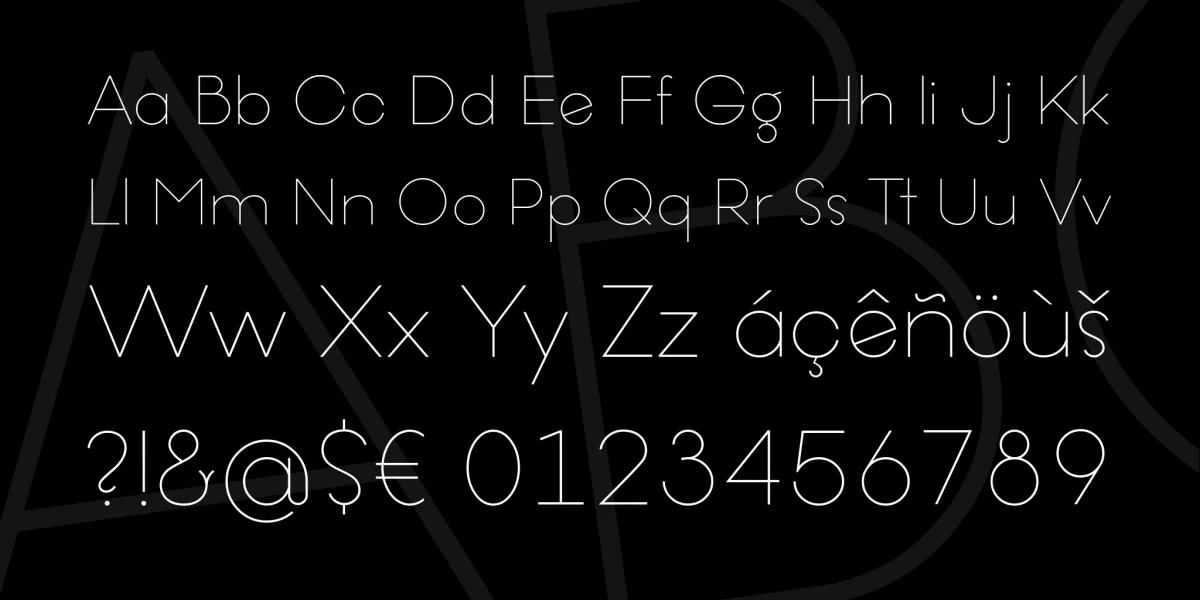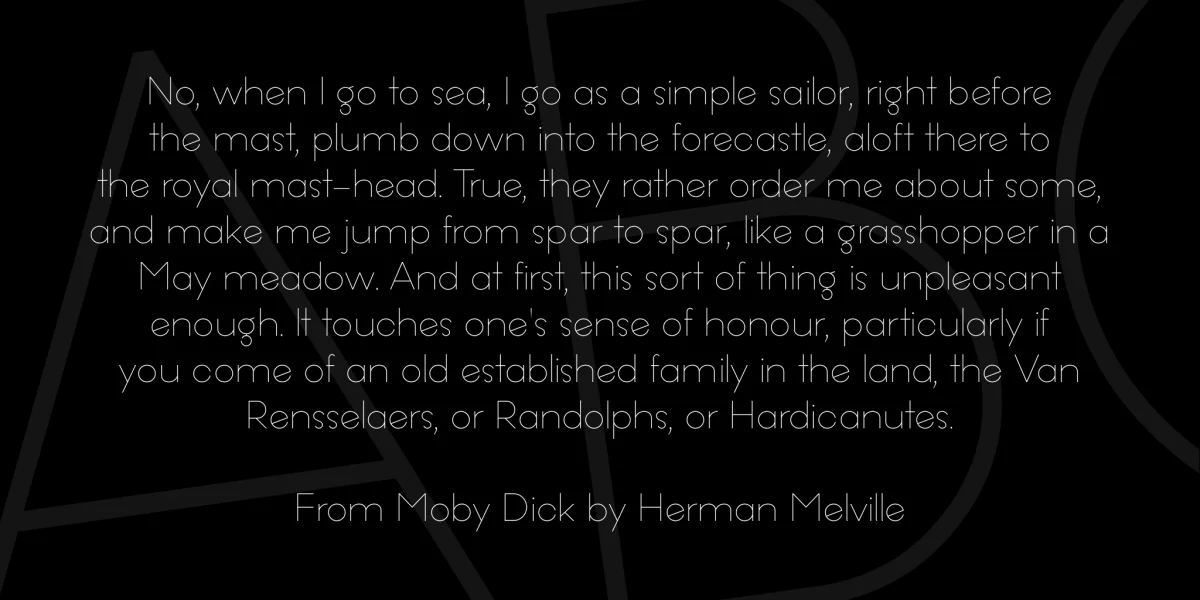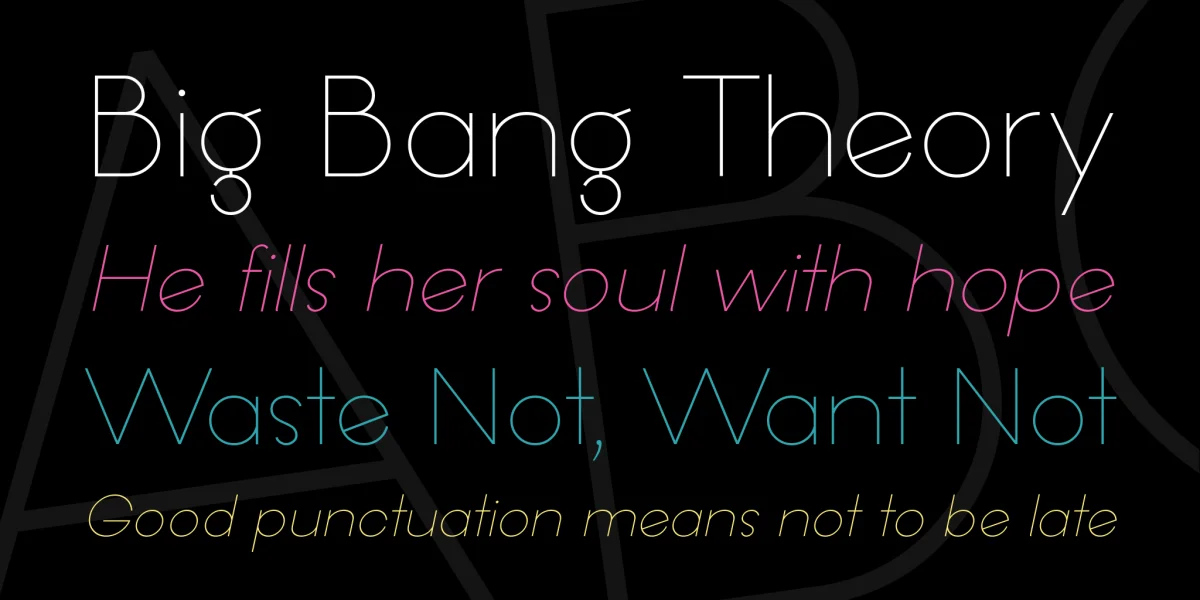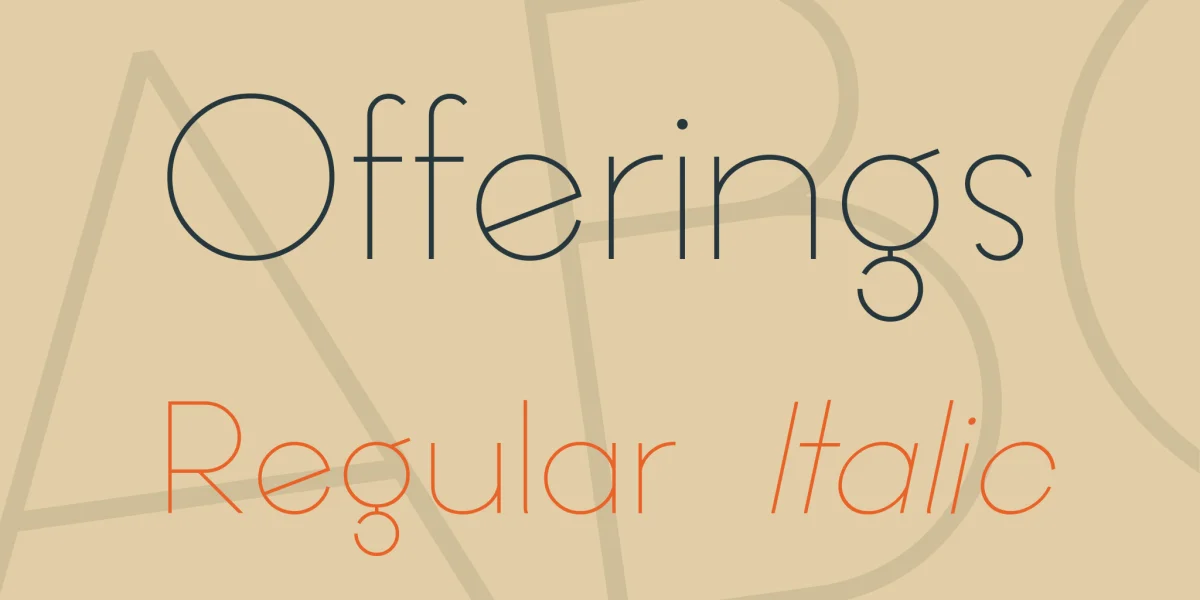
Offering, designed by Situjuh Nazara, is an ultra thin circle based sans serif font. It is designed smoothly with carefully using monoline circle shape to make it has an elegant looks and feel.
It comes as regular and as regular-italic.